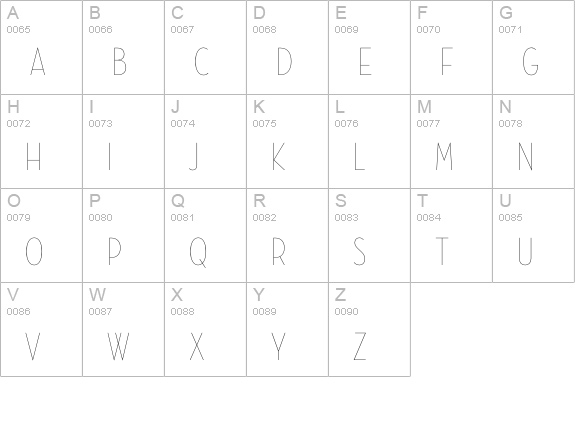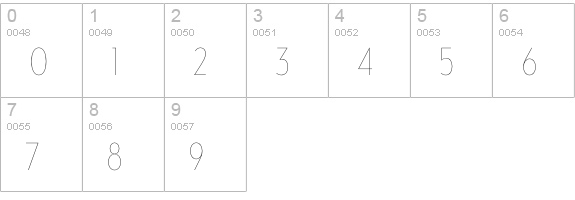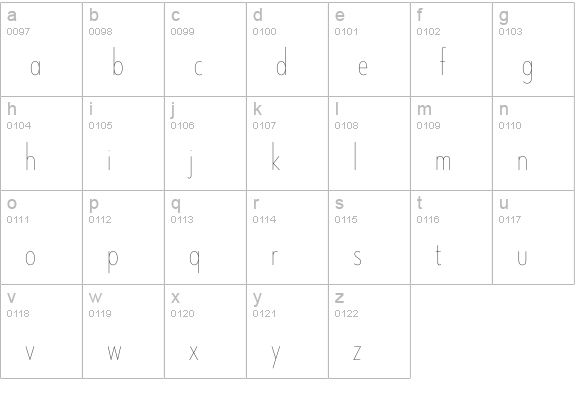
Neutraface Condensed Thin Alt is a delicate, low-contrast, condensed-width variant in the Neutraface typeface family \xE2\x80\x94 well suited to fashion editorial, minimal branding, and high-contrast display.
Neutraface Condensed Thin Alt font is a modern and elegant typeface designed for sleek and sophisticated design projects. With its clean lines and minimalistic appearance, this font exudes a sense of professionalism and refinement. The condensed form of this font adds a touch of sleekness, making it perfect for projects where space is limited or a minimalist aesthetic is desired. What sets Neutraface Condensed Thin Alt font apart is that it is not only beautifully crafted, but it is also available for free download at FontsMarket.com. This allows designers and creatives to access this high-quality font without any cost, making it a valuable resource for a wide range of projects. Whether you are working on branding, web design, or print materials, Neutraface Condensed Thin Alt font is sure to elevate your work with its timeless and sophisticated appeal.